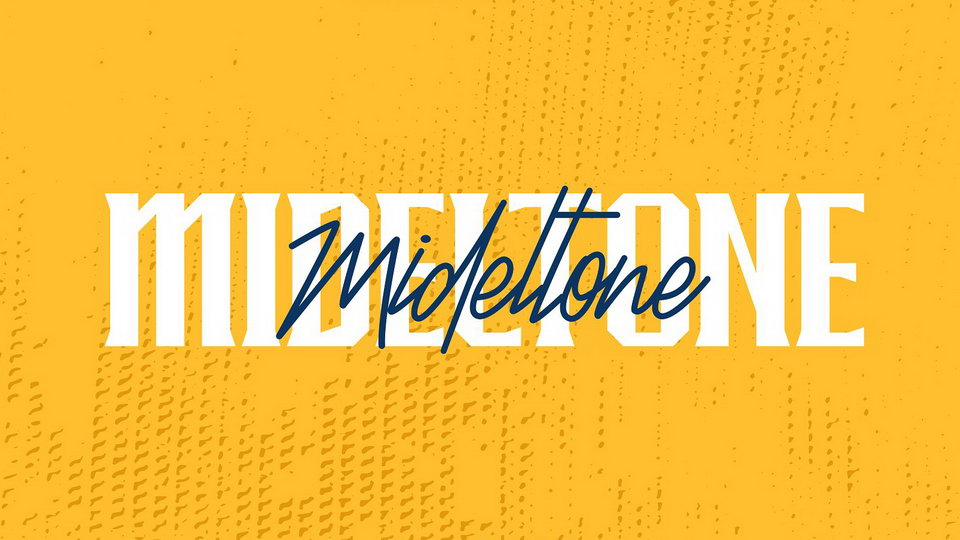
Download Mideltone font duo – typeface with 2 different fonts – Display and Script. Each font comes with standard characters set, including multilingual support.